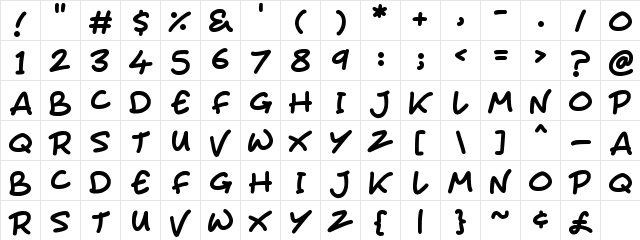
Juice Monster Regular
Design Context for Juice Monster Typeface
Juice Monster is a composed and adaptable typeface that performs quietly and consistently across a wide range of design contexts.
Pro Tip: Use Juice Monster in both headline and body roles to test its range before committing to a single application.